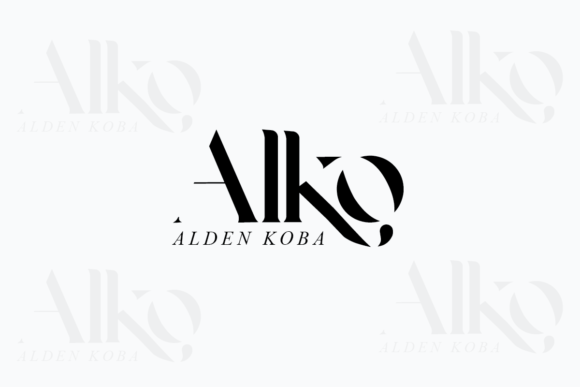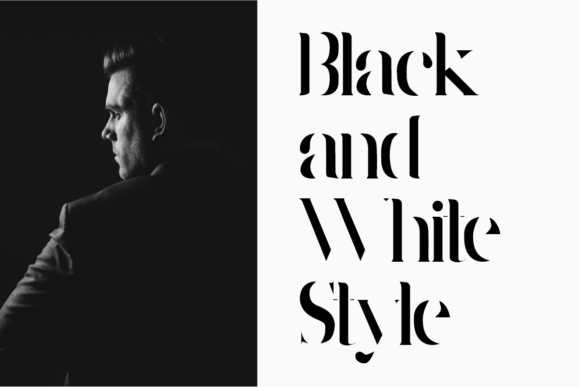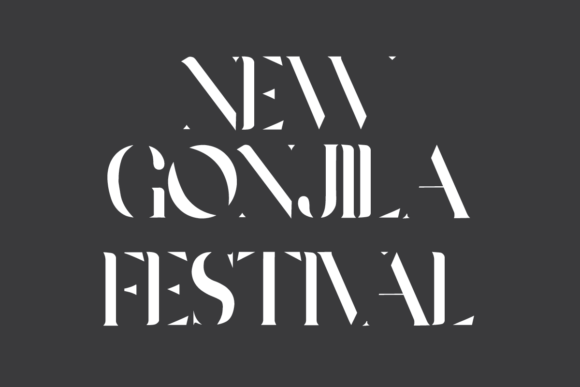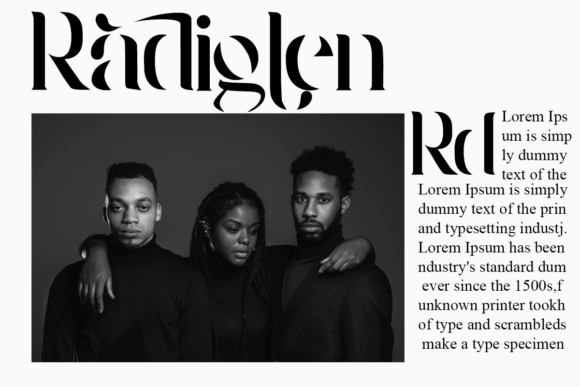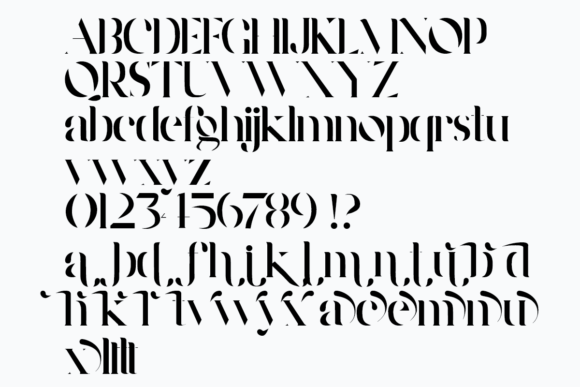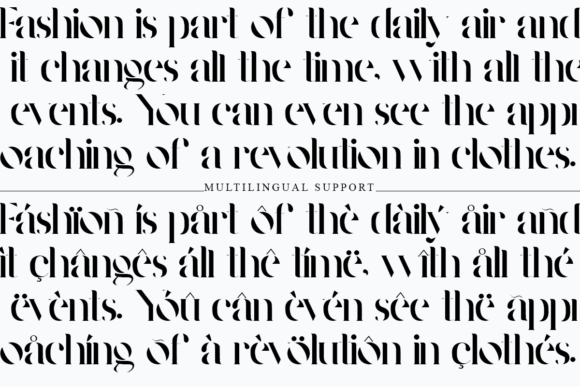
Wordan is a modern and incredibly distinct serif font. It celebrates abstract shapes in all their eclectic beauty. Add it to your favorite design ideas and notice how it makes them come alive!